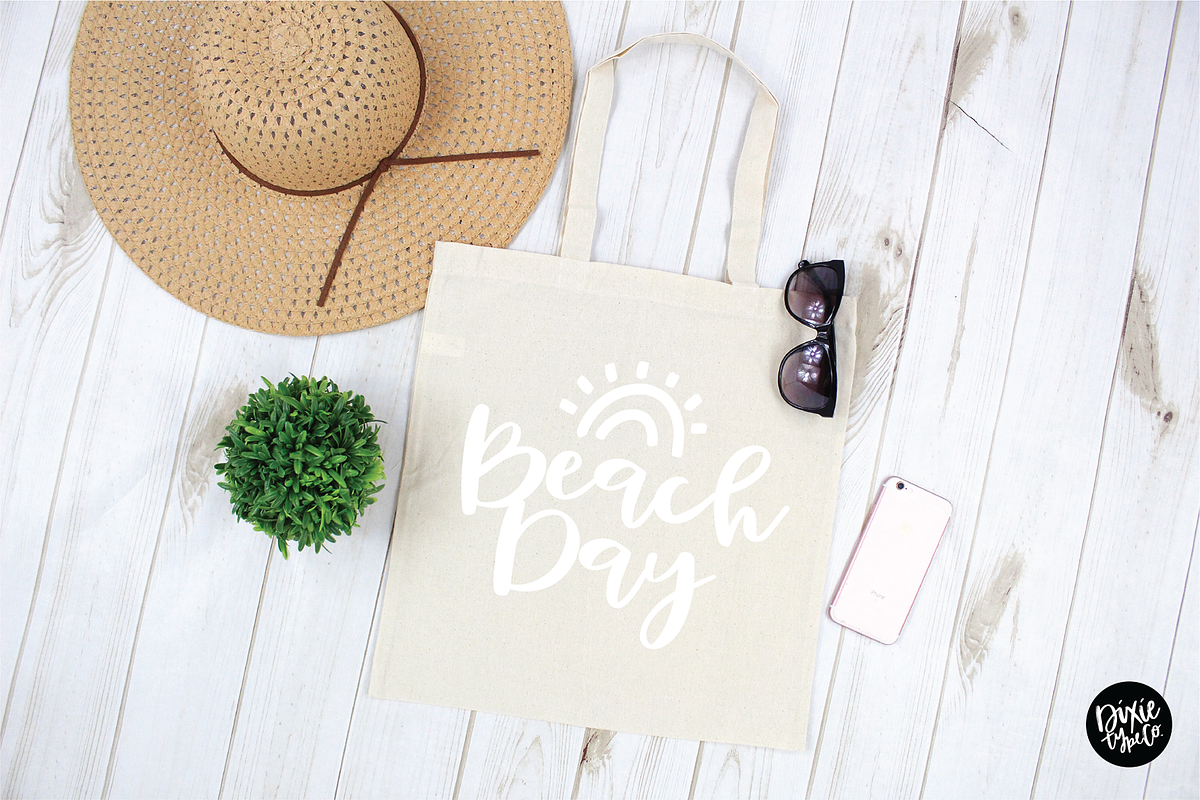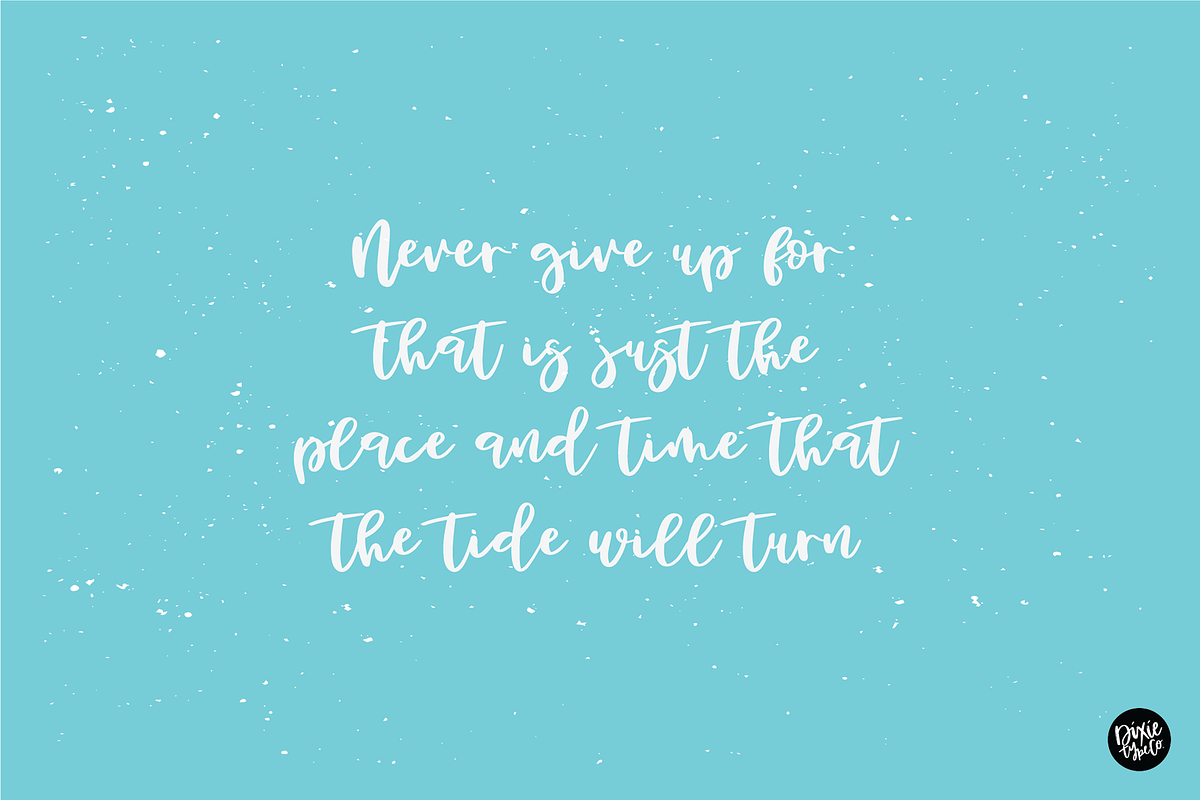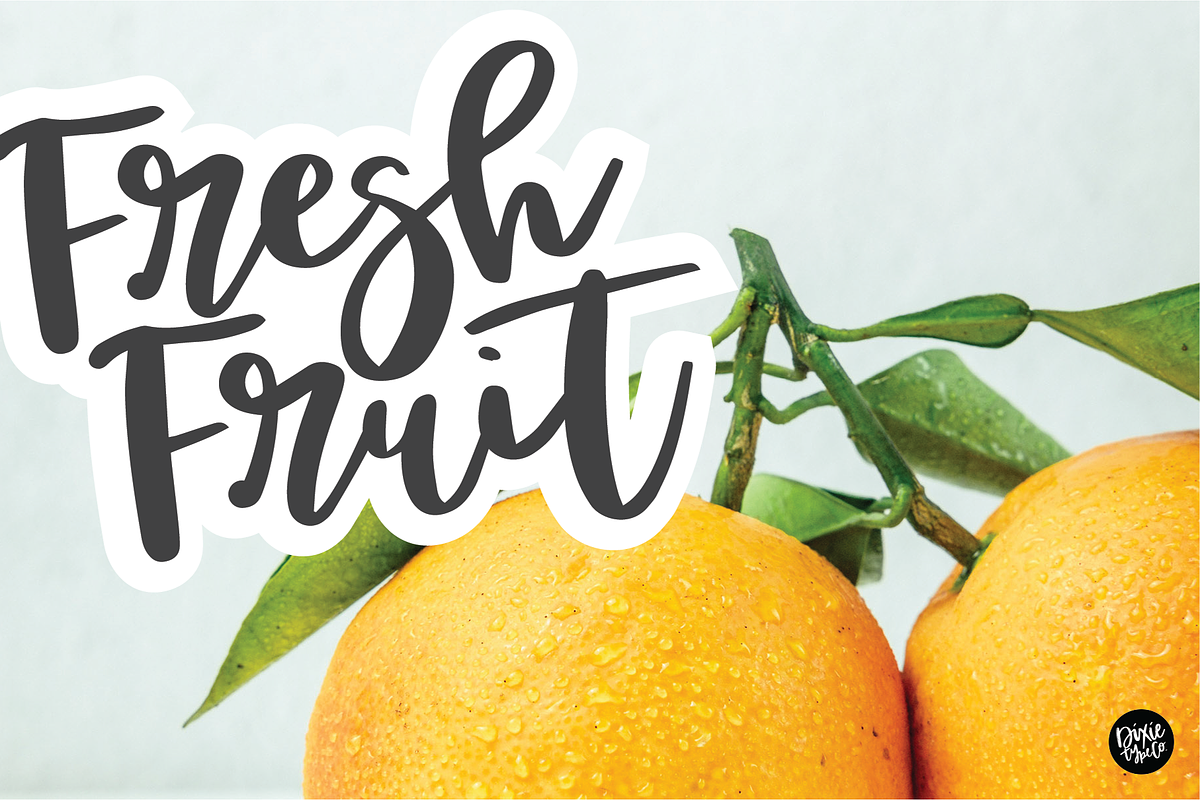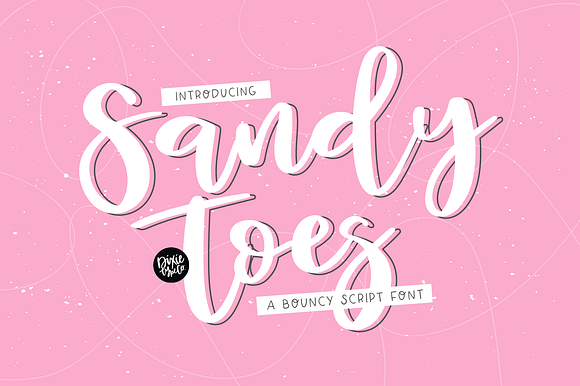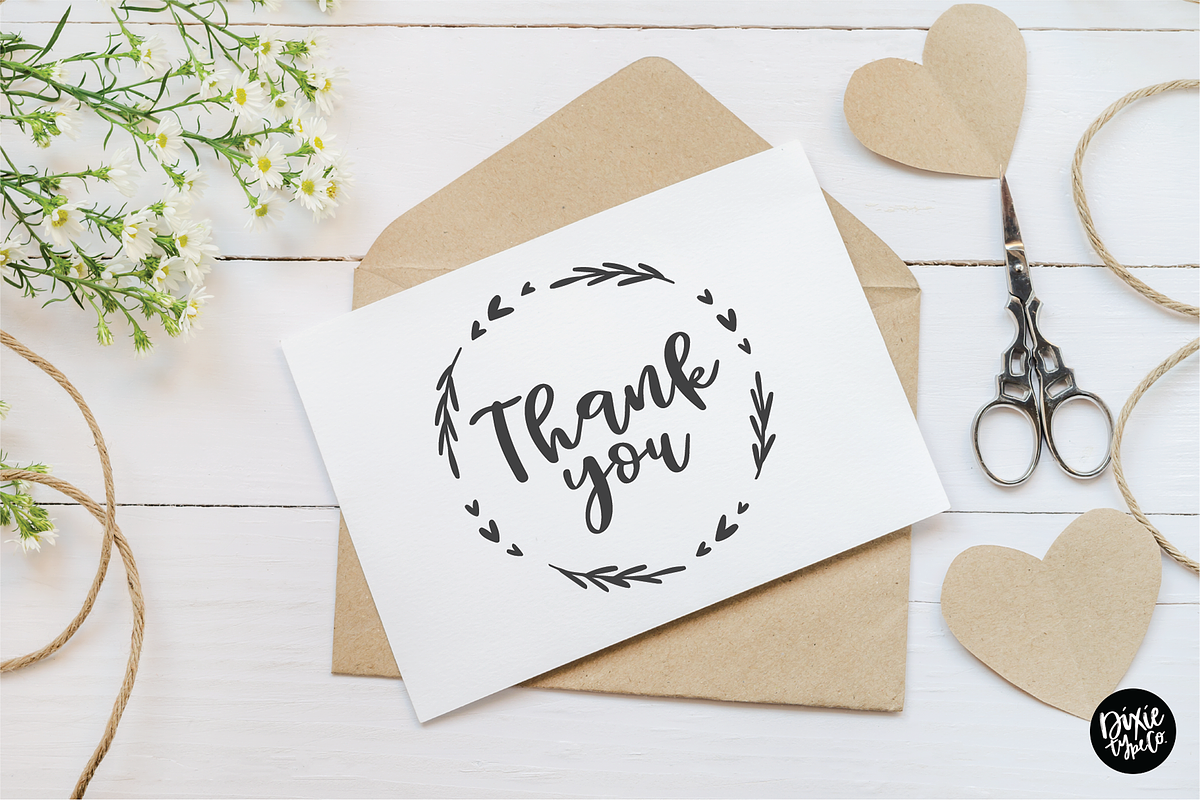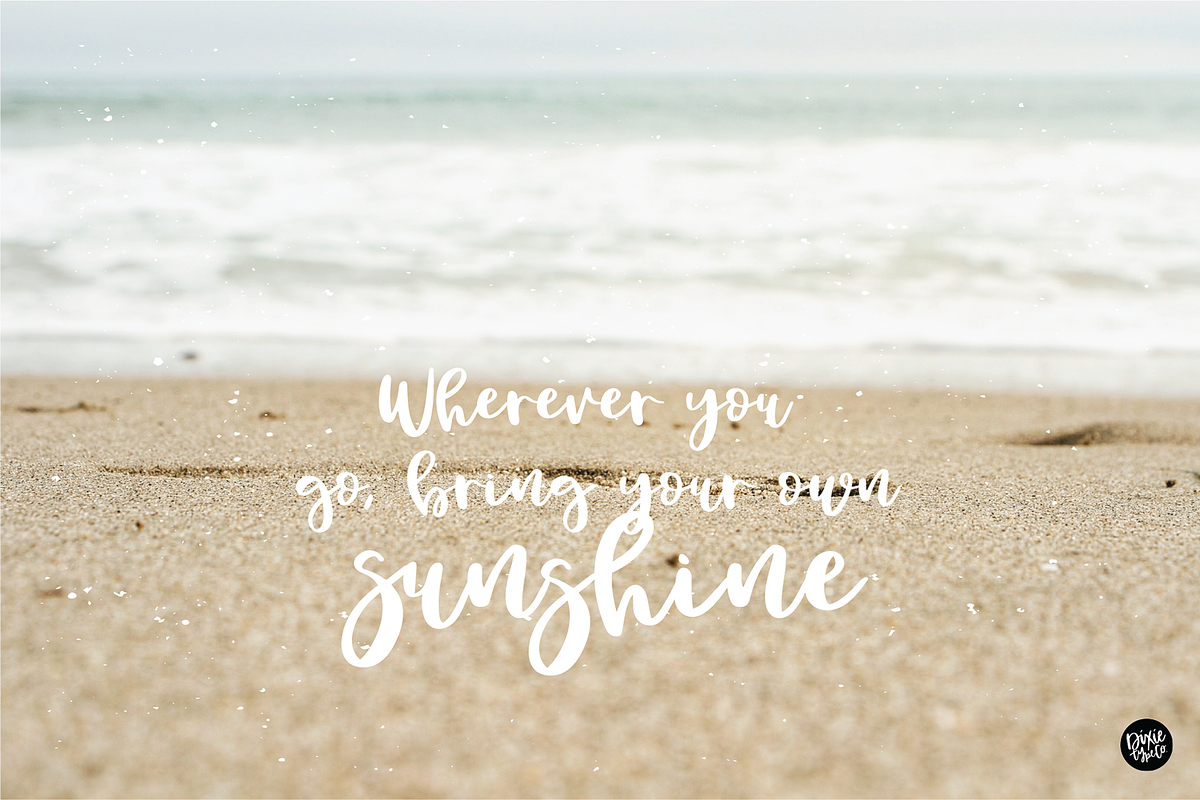
SANDY TOES Bouncy Script Font
{ A typographic font hand-lettered with love by Dixie Type Co. }
Sandy Toes is a bold, bouncy, brush lettered script font.